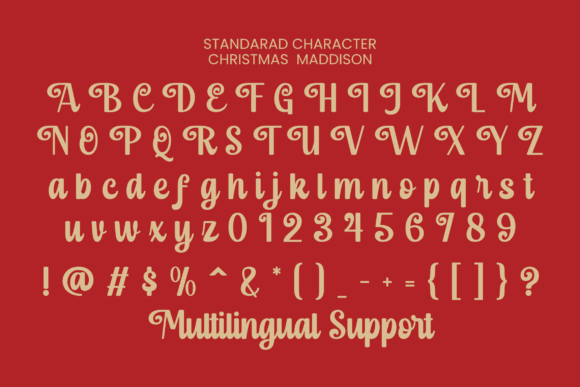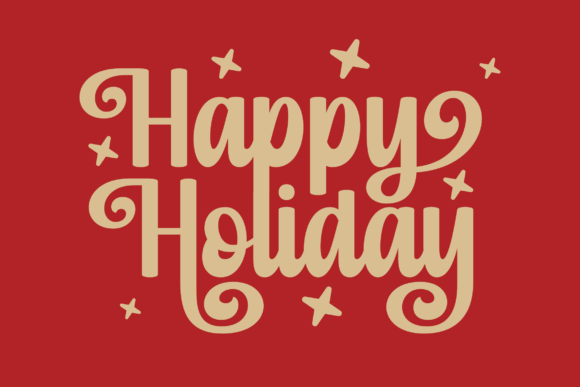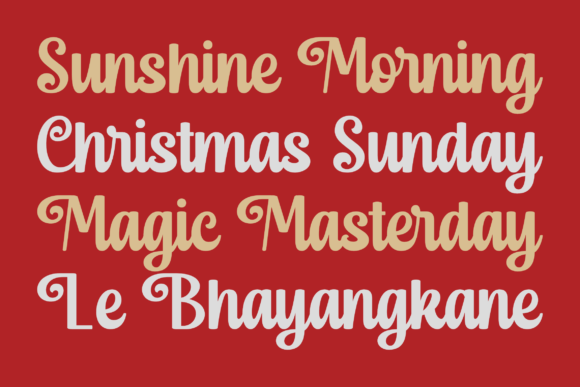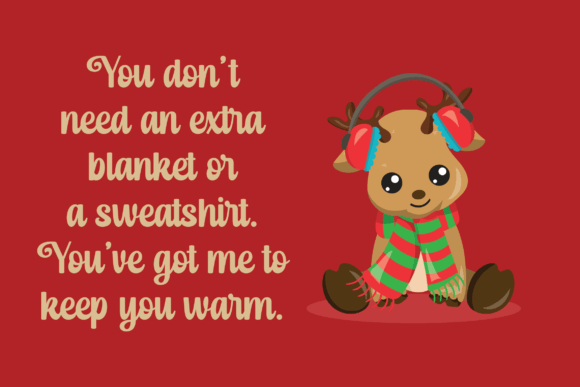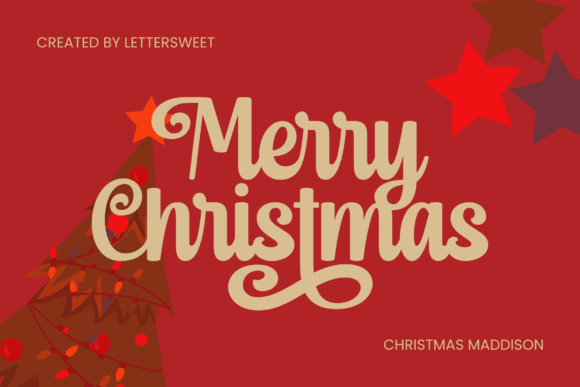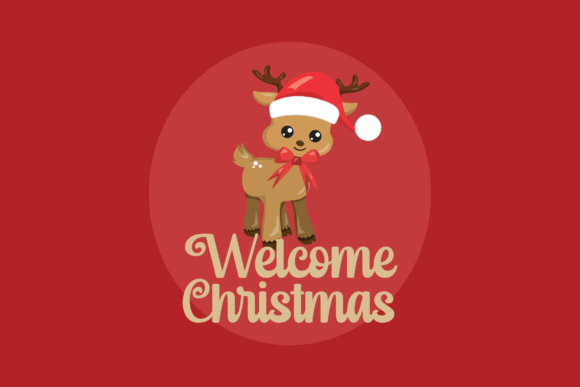
Introducing Christmas Maddison Font: A Beautiful and Romantic Handwritten Font
Are you looking for a font that adds a touch of elegance and romance to your designs? Look no further than Christmas Maddison Font! This stunning handwritten font is perfect for creating beautiful and eye-catching designs for various occasions, including thank you cards, quotes, wedding invitations, greeting cards, business cards, logos, and more.
What Makes Christmas Maddison Font Special?
Christmas Maddison Font is a unique and exquisite handwritten font that boasts a romantic and whimsical feel. Its beautiful and flowing script makes it an ideal choice for designers and crafters who want to add a personal touch to their designs. Whether you’re creating a wedding invitation, a greeting card, or a logo, this font is sure to impress.
Key Features of Christmas Maddison Font
- Beautiful and Romantic Handwritten Font: Christmas Maddison Font is a gorgeous handwritten font that exudes romance and elegance.
- PUA Encoded: This font is PUA encoded, which means you can access all the glyphs and swashes easily, making it simple to use and customize.
- Versatile: Christmas Maddison Font is perfect for a wide range of design projects, including thank you cards, quotes, wedding invitations, greeting cards, business cards, logos, and more.
Christmas Maddison Font is a must-have for designers and crafters who want to create beautiful and unique designs. Its versatility and ease of use make it an ideal choice for:
- Wedding Designers: Create stunning wedding invitations, save-the-date cards, and other wedding-related designs with this gorgeous font.
- Graphic Designers: Use Christmas Maddison Font to create eye-catching logos, business cards, and other graphic design projects.
- Crafters: Add a personal touch to your craft projects, such as handmade cards, gift tags, and other paper crafts.
Tips for Using Christmas Maddison Font
Here are some tips for using Christmas Maddison Font to get the most out of this beautiful font:
- Pair it with Other Fonts: Experiment with pairing Christmas Maddison Font with other fonts to create a unique and eye-catching design.
- Use it for Headings and Titles: Use this font for headings and titles to add a touch of elegance and sophistication to your designs.
- Experiment with Colors: Try out different colors and color combinations to see what works best with Christmas Maddison Font.
In conclusion, Christmas Maddison Font is a beautiful and romantic handwritten font that is perfect for designers and crafters who want to add a touch of elegance and sophistication to their designs. Its versatility, ease of use, and PUA encoding make it an ideal choice for a wide range of design projects. Whether you’re creating wedding invitations, logos, or handmade cards, this font is sure to impress.